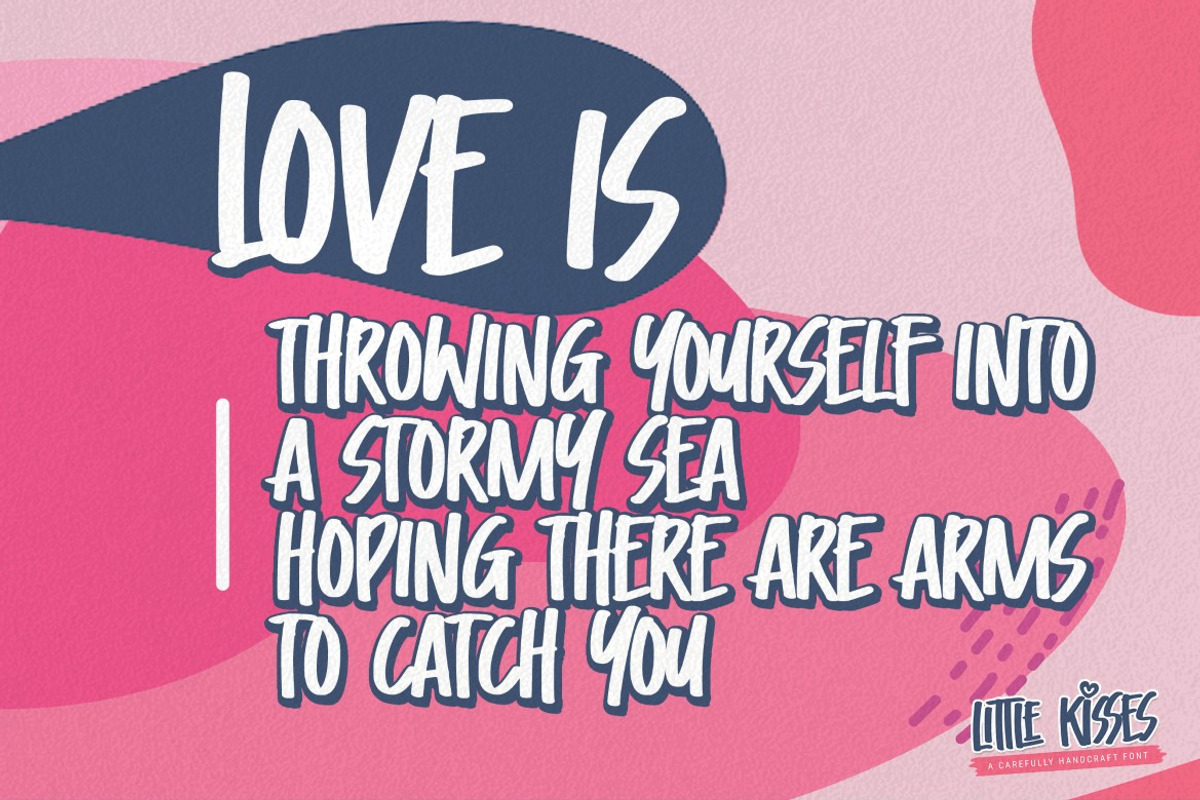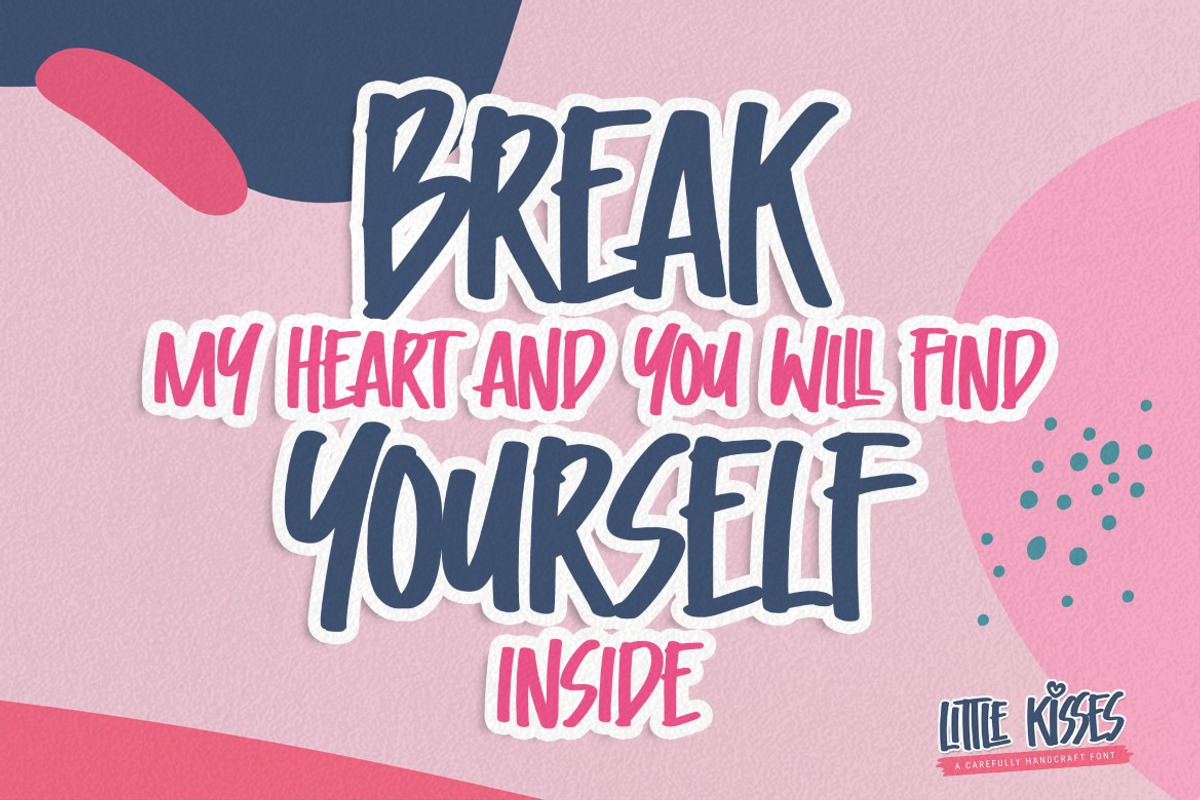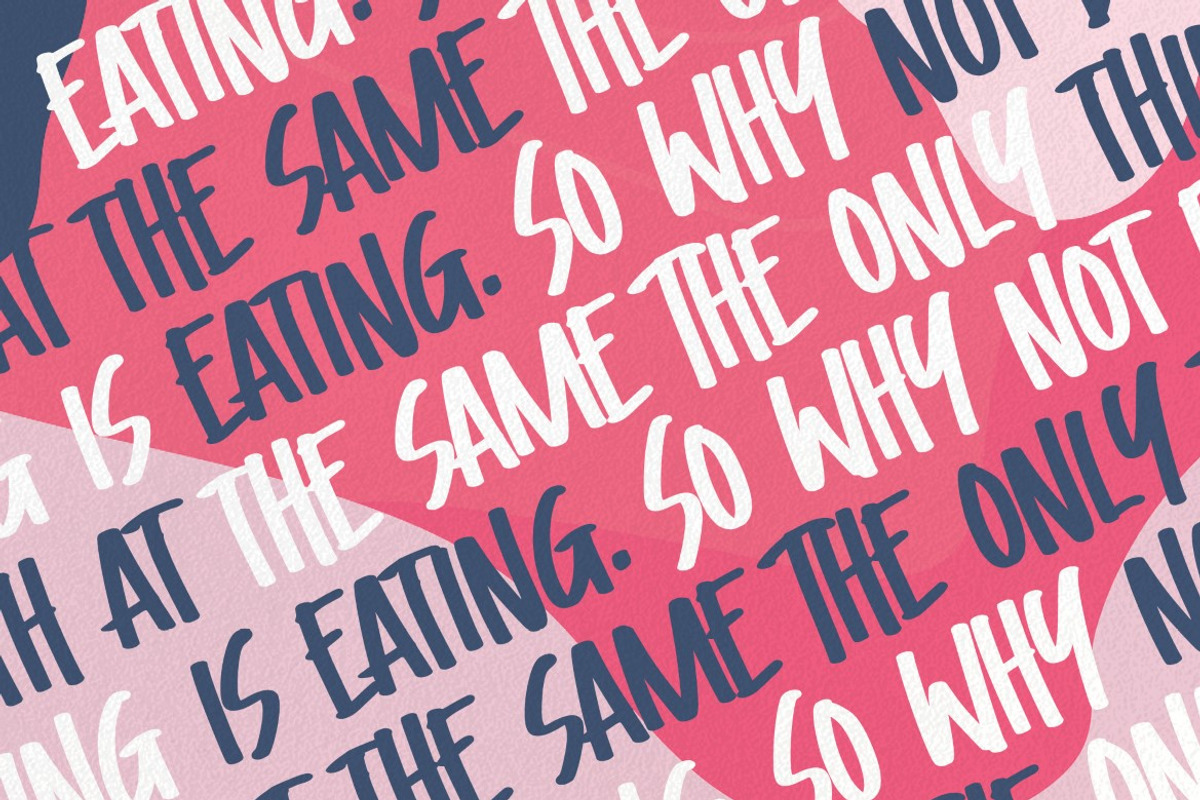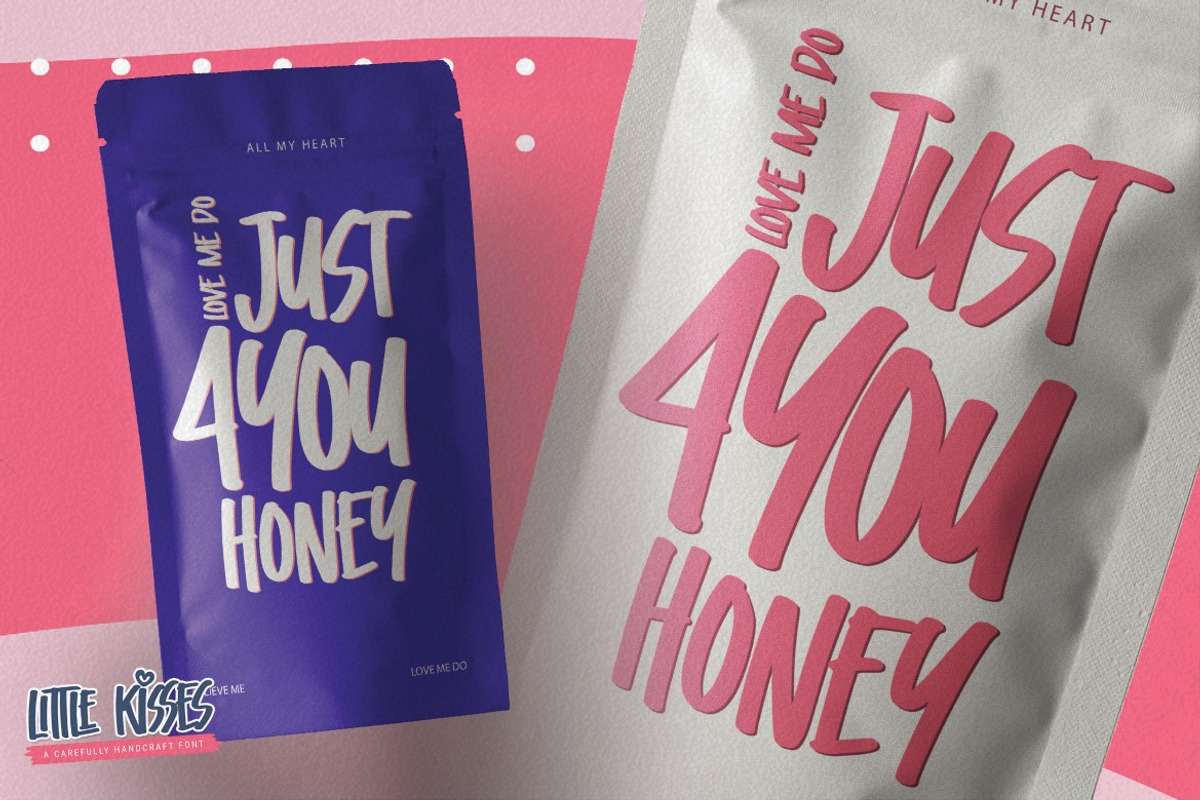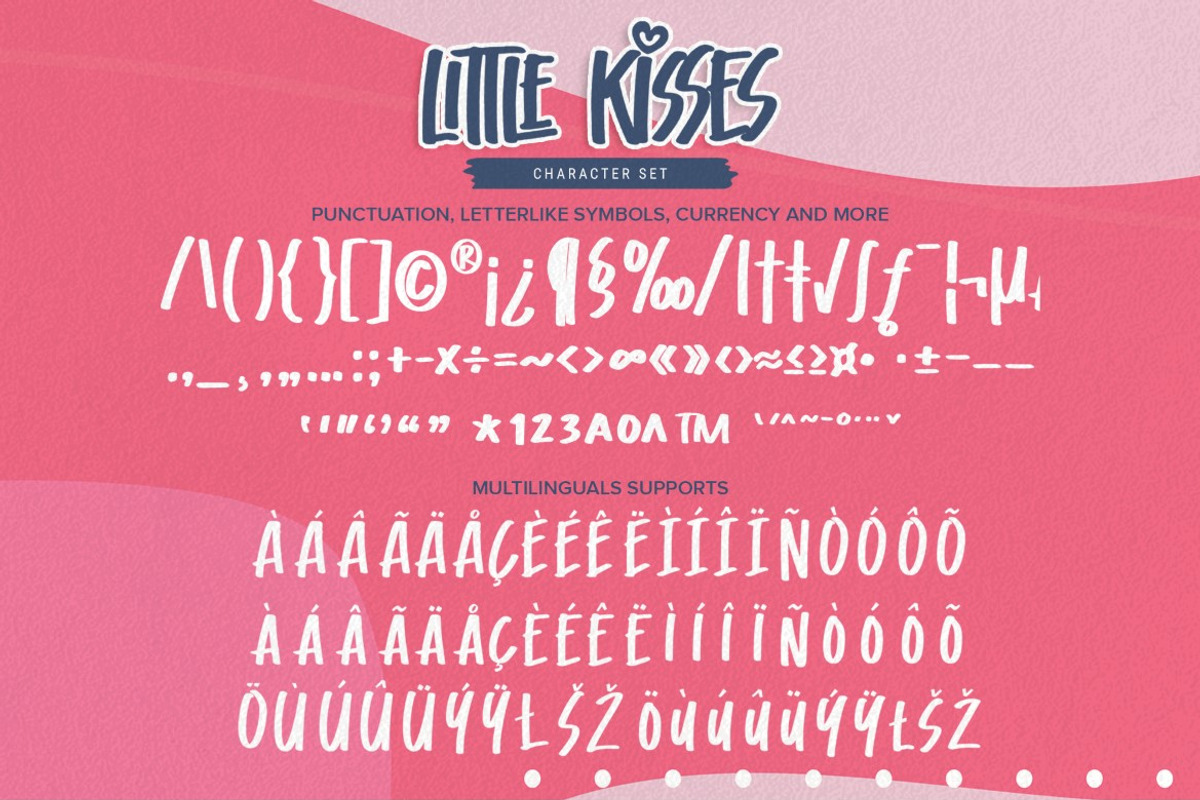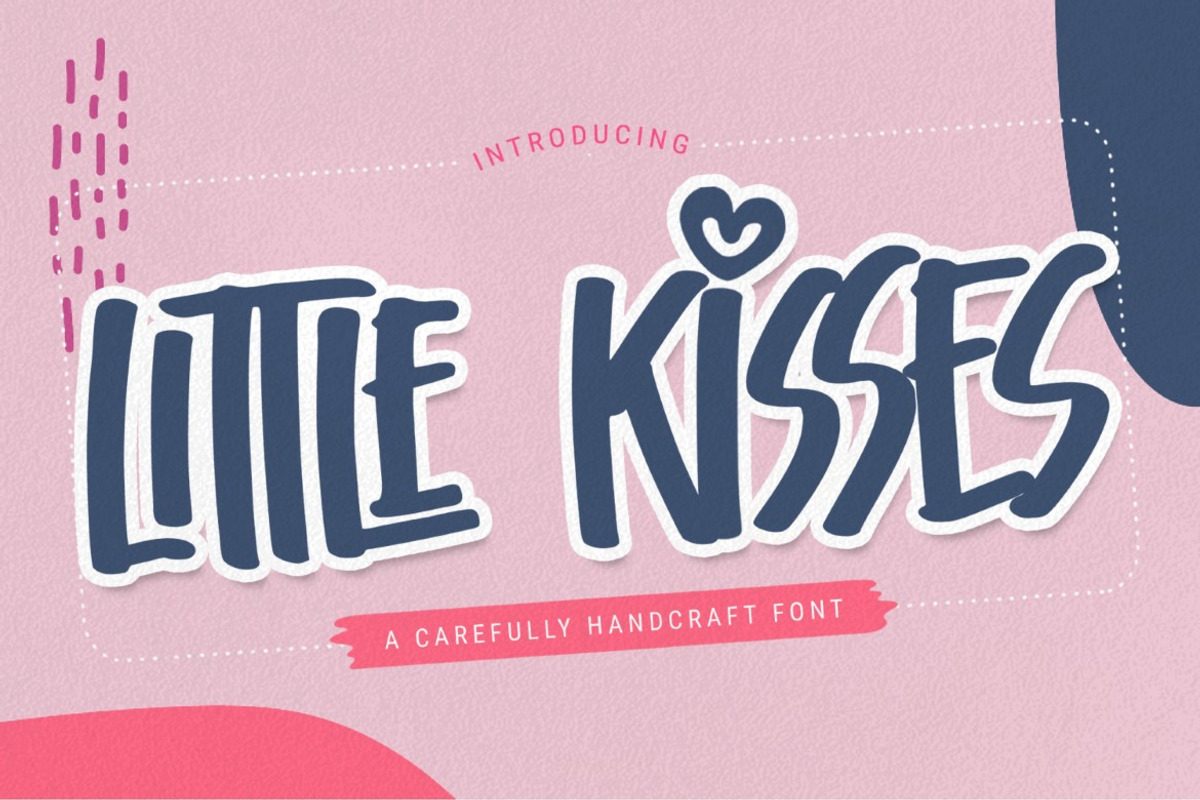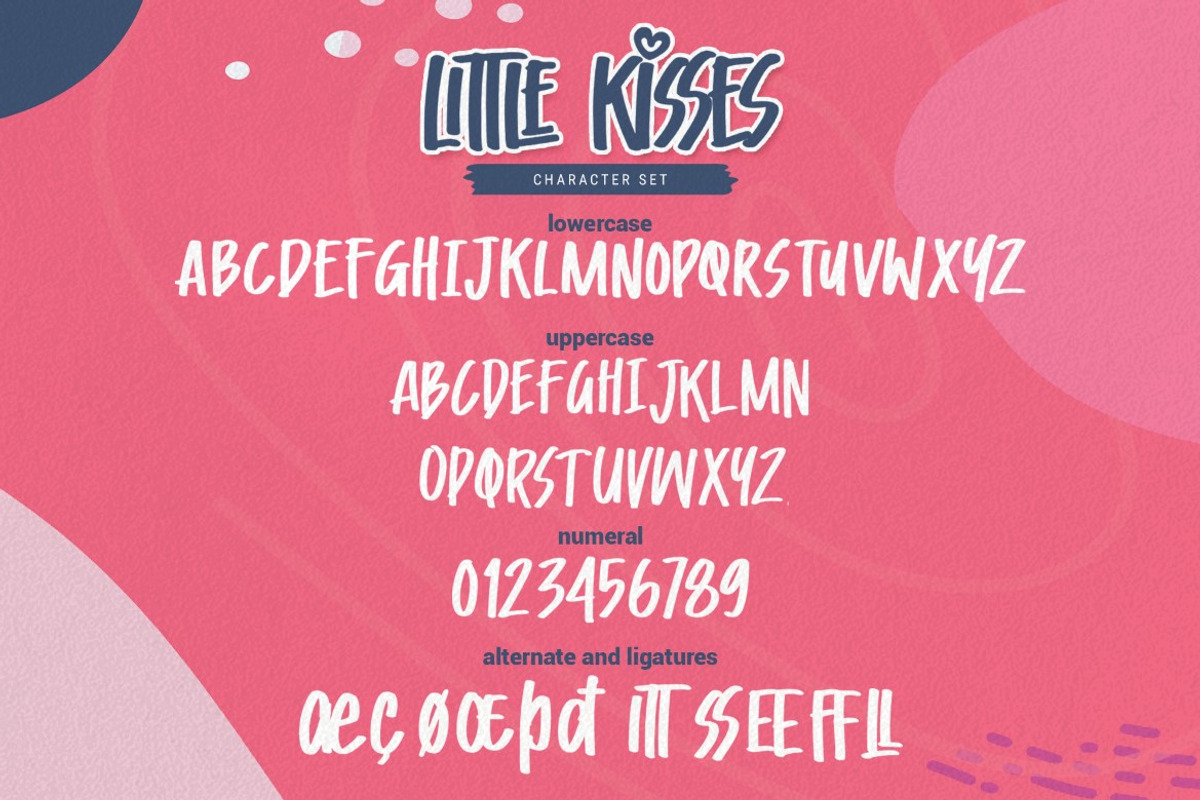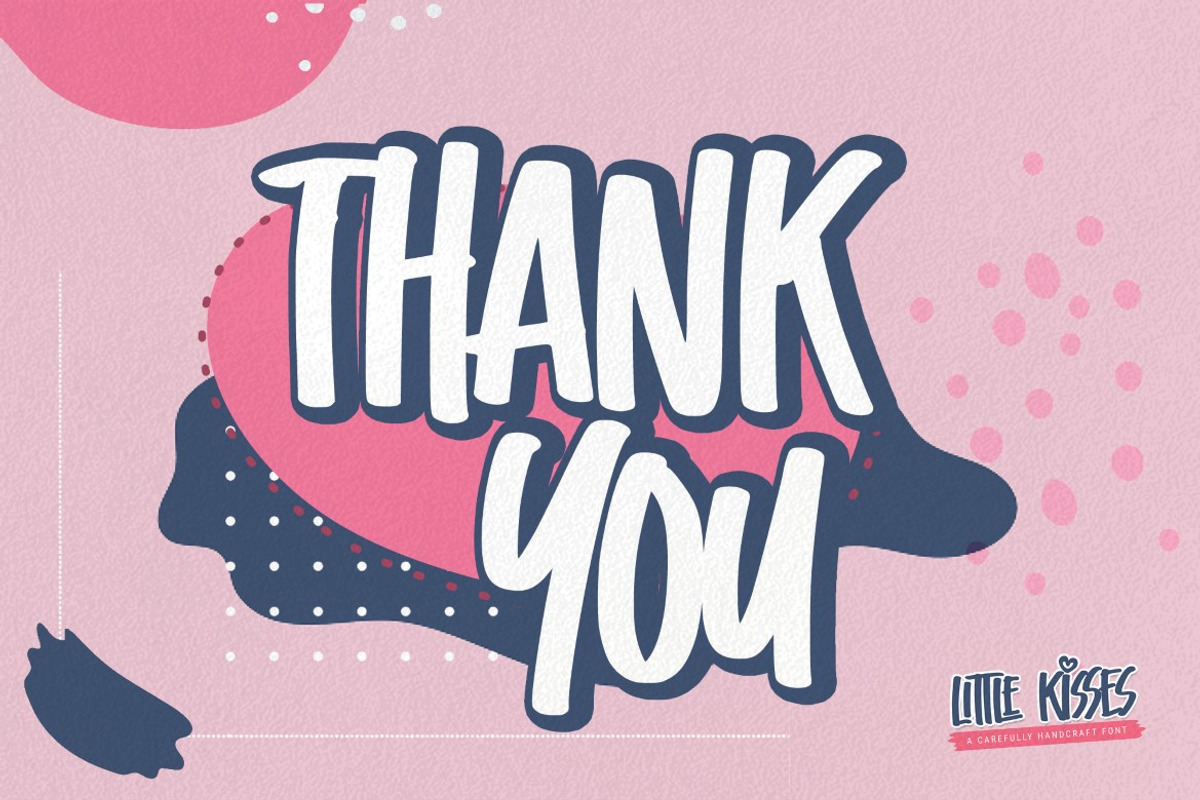
Little Kisses - Playful Display Font
Little Kisses is a Playful Display Font that will make your designs look modern, unique and fun. It’s perfect for labels, quotes, posters, DIY projects, branding, packaging, greeting cards, websites, photography overlays, signs, window art, scrapbooking, tags and so much more!